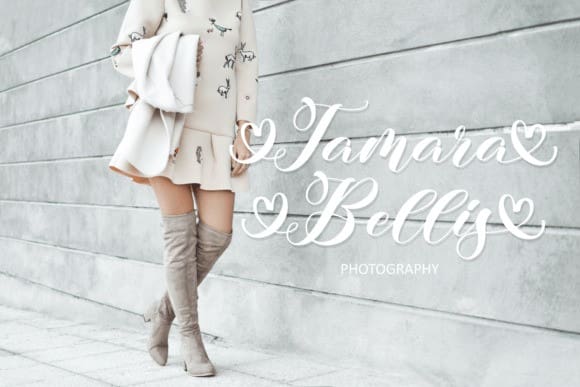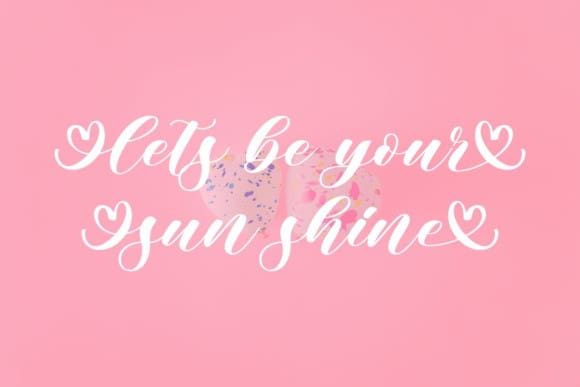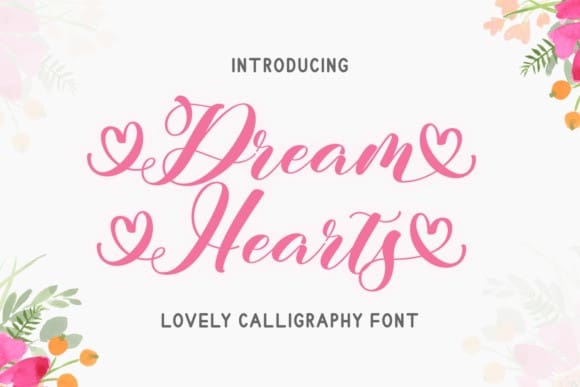
Dreamhearts Font
Dreamhearts Font is a lovely handwritten font with a sweet and classy style. Add it to your logos, labels, branding, invitations, websites, quotes, and more, and it will boost your designs and make them a true standout!